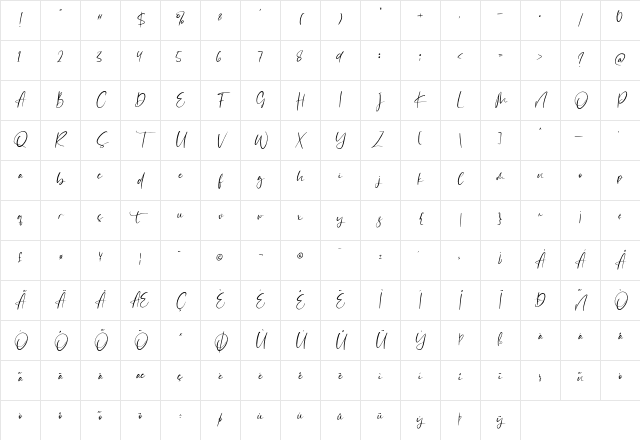
Catthy Wellingten Regular Free Font
Catthy Wellingten Regular
Foundry: Stringlab
Designer: Stringlab
Design Context for Catthy Wellingten
Catthy Wellingten is a composed and adaptable typeface that performs quietly and consistently across a wide range of design contexts.
Who designed the Catthy Wellingten Regular font?